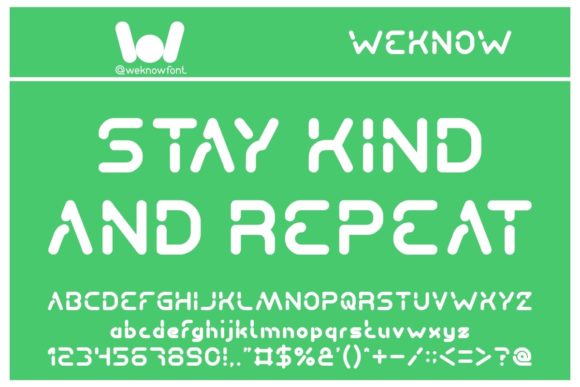
Welcome to the world of Stay Kind & Repeat – a remarkable display font poised to elevate your creative endeavors to new heights. This cutting-edge creation from the visionary minds at weknow captivates with its futuristic charm and unyielding boldness.
Born to stand out, Stay Kind & Repeat exudes an aura of individuality, an unwavering resolve to defy the ordinary. Its sharp lines and sleek curves dance in perfect harmony, evoking a symphony of creativity. Immerse yourself in its captivating rhythm, let your imagination soar, and create visual masterpieces that resonate.
Unleash the full potential of Stay Kind & Repeat in your musical ventures. Its distinctive character shines brightest in the realm of music posters, where it commands attention like a maestro leading an orchestra. The font's unique blend of power and grace translates effortlessly onto any poster, transforming them into captivating works of art.
Beyond the realm of music, Stay Kind & Repeat proves its versatility across a boundless spectrum of design projects. Its striking presence adds a touch of sophistication to logos, headlines, and corporate identities, injecting life into branding initiatives. Unleash your creativity in the apparel industry, let your designs shine on posters, magazines, books, and comics.
Stay Kind & Repeat transcends the boundaries of the ordinary, propelling your creative projects to unprecedented heights. Join the creative revolution, embrace the allure of the extraordinary, and let Stay Kind & Repeat guide you to design greatness.